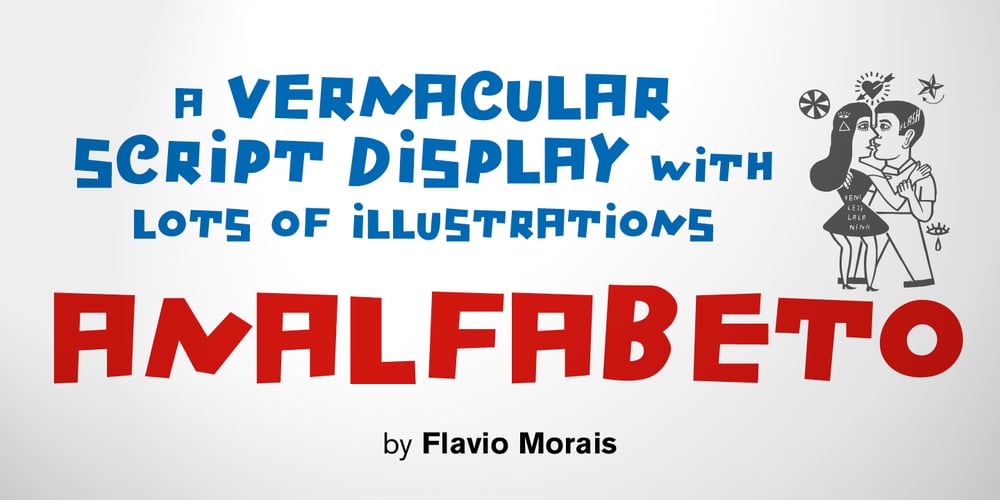
Analfabeto Font Family was designed by Joan Barjau, Flavio Morais and published by Type-Ø-Tones. Analfabeto contains 2 styles and family package options. The Brazilian illustrator, Flavio Morais, devised this amusing display alphabet to have his own font for his former website. We helped to digitalize it and encouraged him to complete it with a series of “chiringuito” drawings. More about his work here.